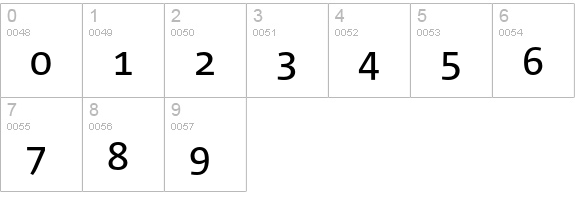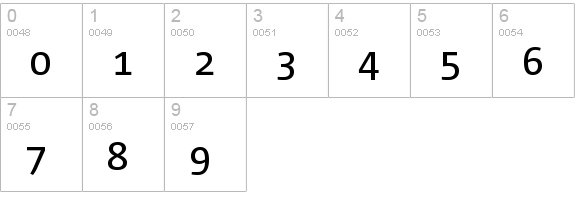
Corpid font is a versatile and modern typeface that exudes sophistication and elegance. With its clean lines and stylish appearance, Corpid is perfect for a wide range of design projects, from branding and advertising to editorial and web design. This sleek and professional font is sure to make a statement and elevate any project to the next level. Best of all, Corpid font is completely free to download at FontsMarket.com. Whether you're a designer looking to add a touch of class to your work or a business owner in need of a fresh new look for your brand, Corpid font is the perfect choice. Download it today and see how this stunning typeface can take your designs to new heights.